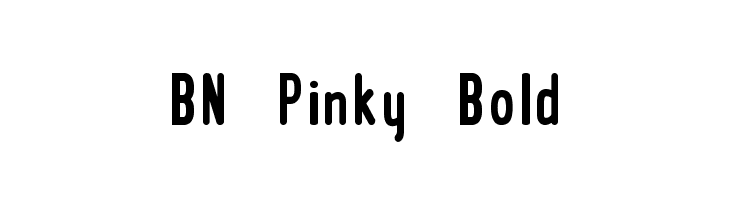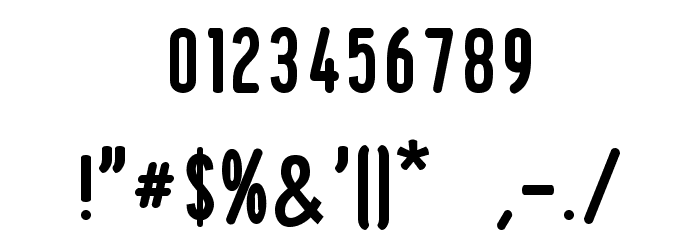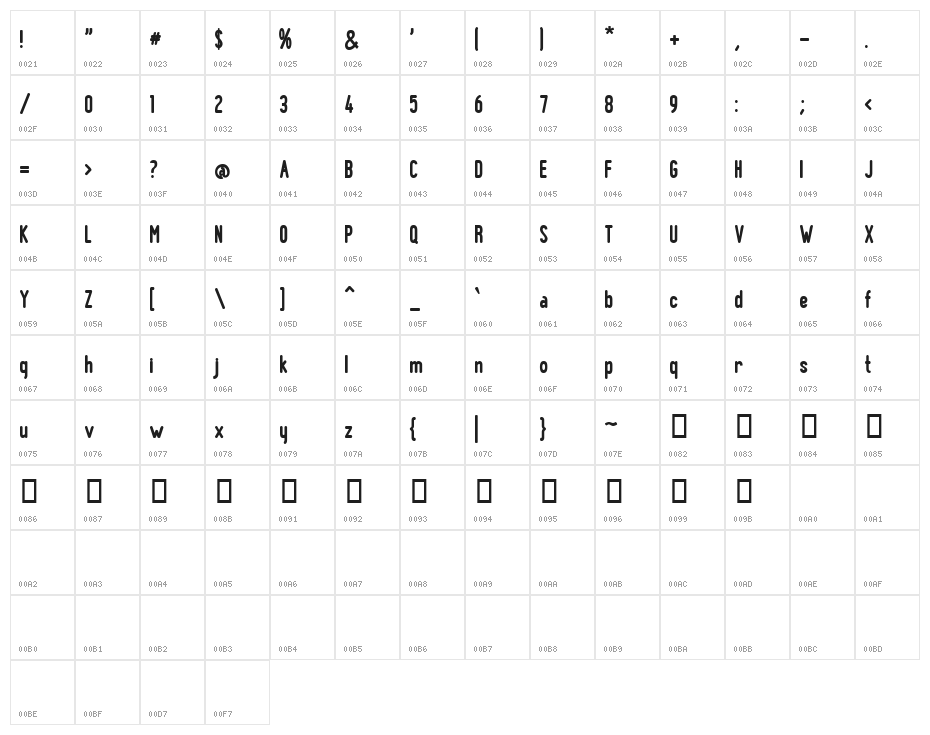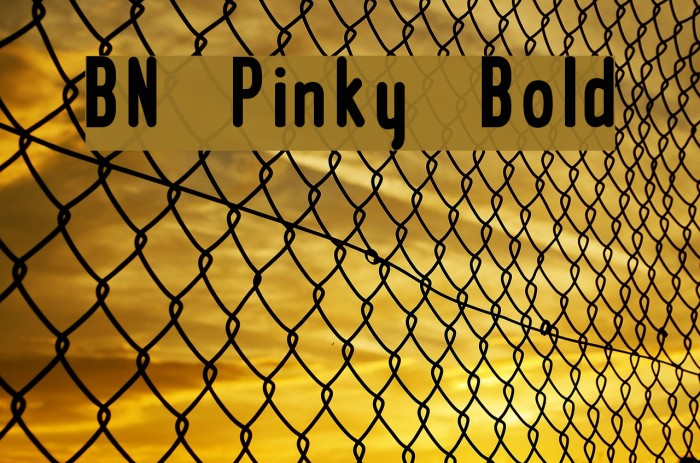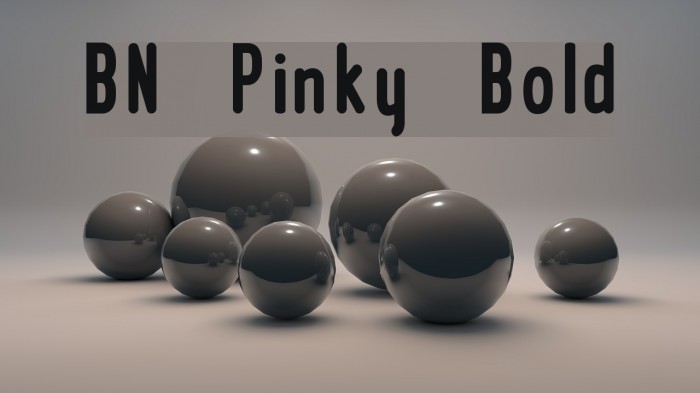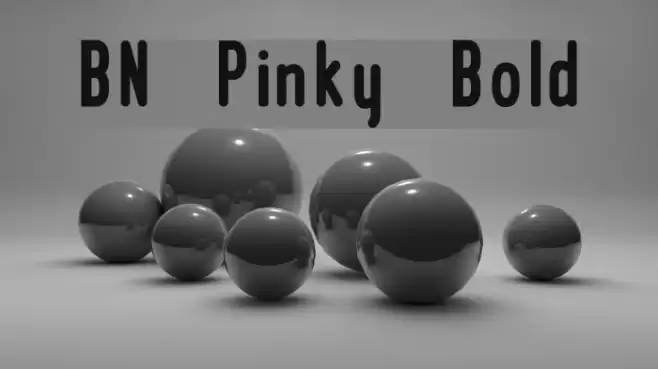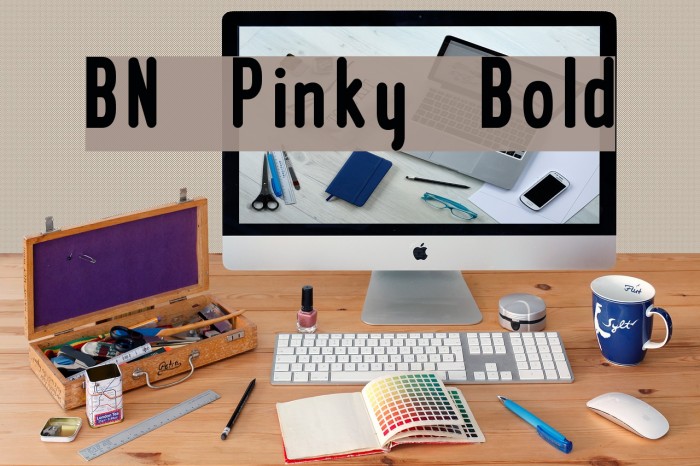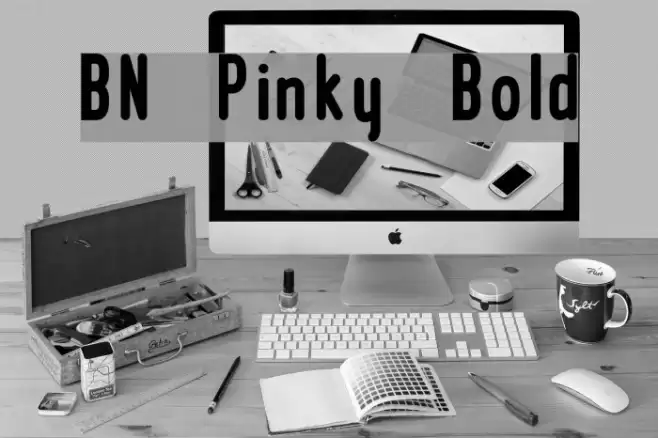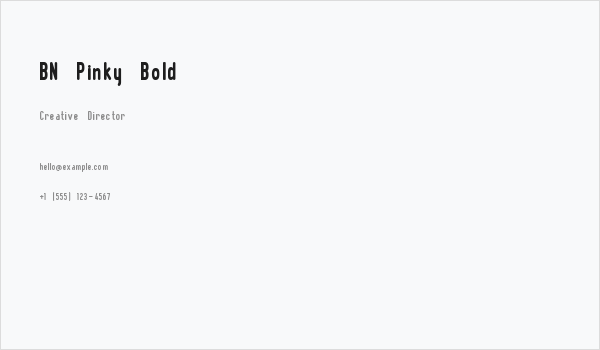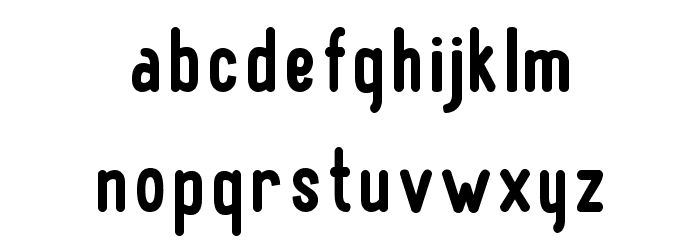
BN Pinky Bold Font
BN Pinky Bold Description
This font features a playful and rounded design, characterized by its bold and friendly appearance. The letters have a consistent stroke width, giving it a uniform and cohesive look. The rounded edges and smooth curves contribute to its approachable and informal style, making it suitable for a variety of creative projects. The numerals and special characters maintain the same playful aesthetic, ensuring a harmonious visual experience across different uses. Its boldness makes it stand out, while the rounded forms add a touch of warmth and friendliness.
| Overall Style | Playful, Friendly, Modern |
| Proposed Projects | Ideal for children's books, playful branding, casual invitations, and creative posters. |